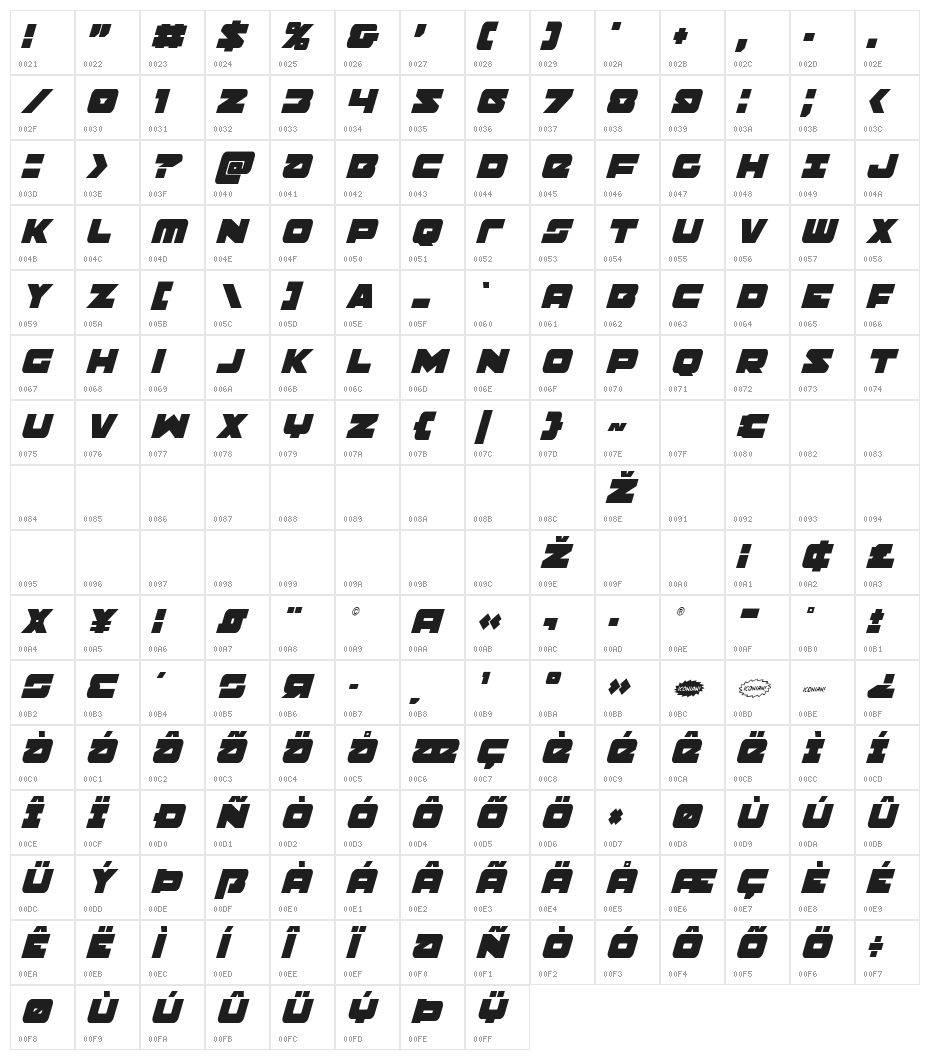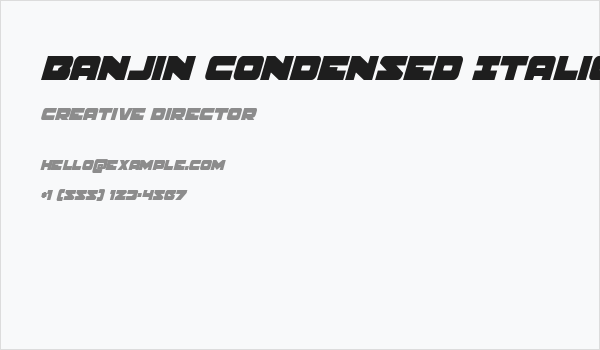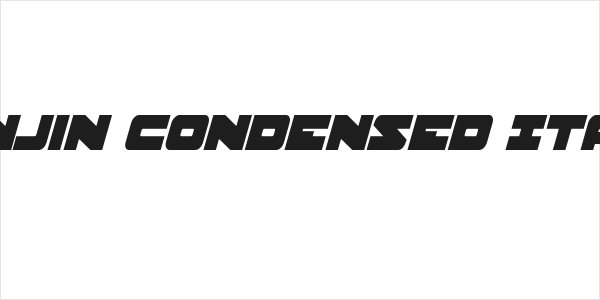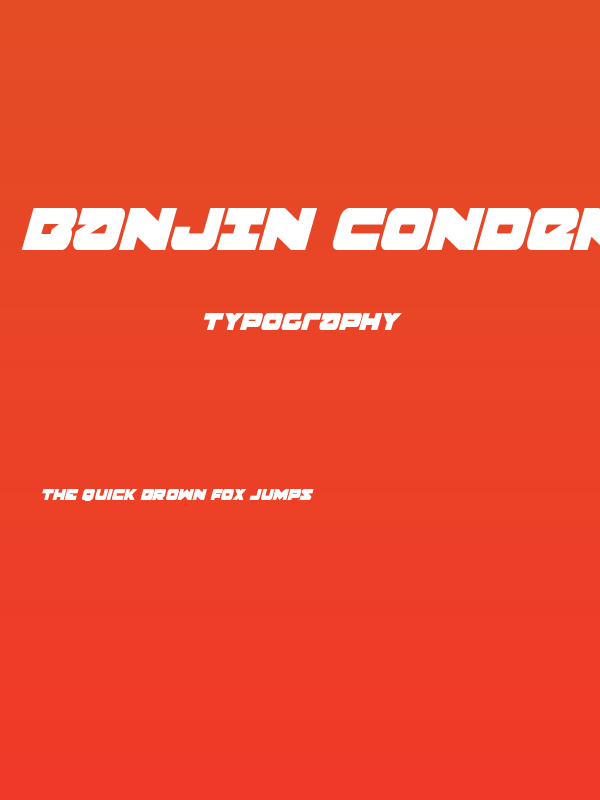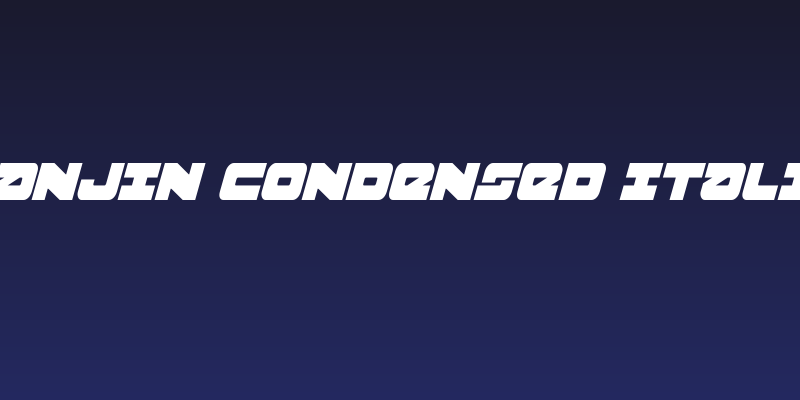
Banjin Condensed Italic Font
Banjin Condensed Italic Description
This font features a bold, condensed style with a distinct italic slant, giving it a dynamic and forward-moving appearance. The characters are tightly spaced, enhancing its compact and impactful look. The strokes are thick and consistent, providing a strong visual presence. This style is reminiscent of modern, futuristic design, making it suitable for projects that require a bold statement. The uppercase letters are particularly striking, with angular cuts and geometric shapes that add to its unique character. The numbers and special characters maintain the same bold and condensed style, ensuring consistency across all elements.
| Proposed Projects | Ideal for branding, sports team logos, posters, and any design needing a strong, modern impact. |